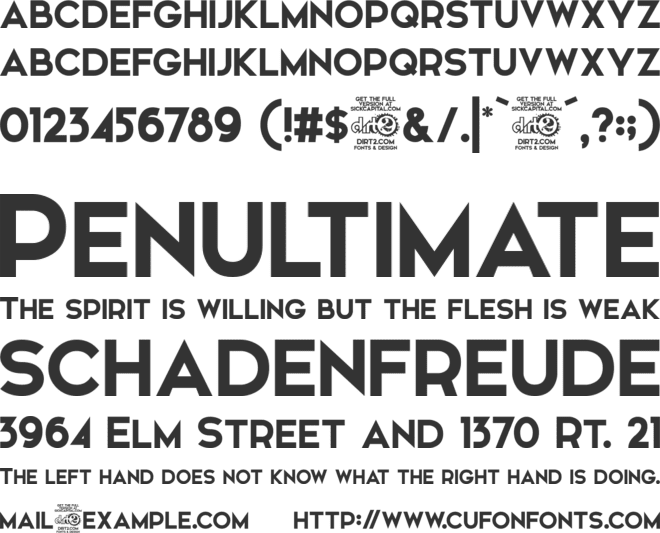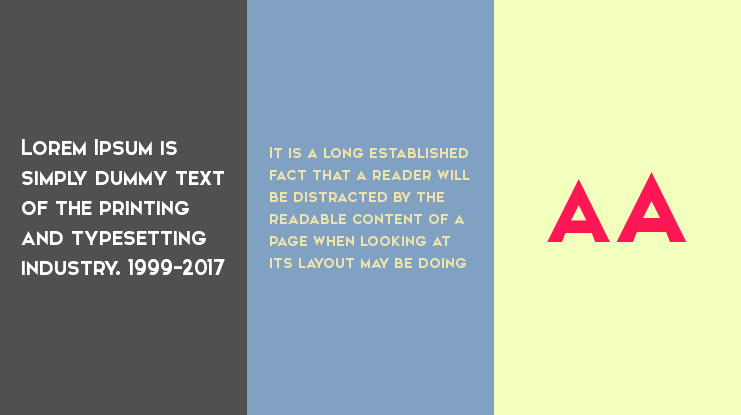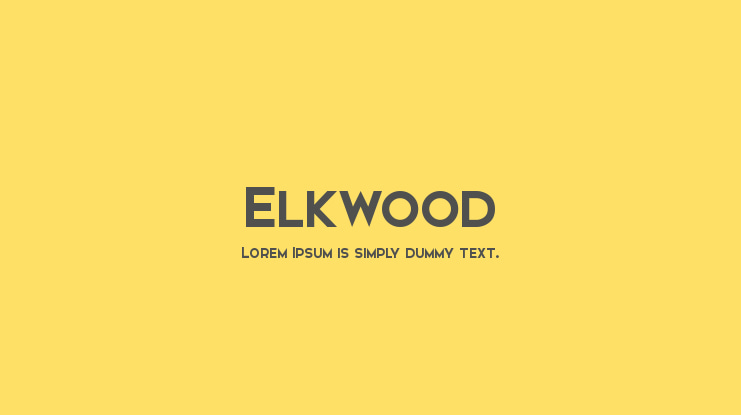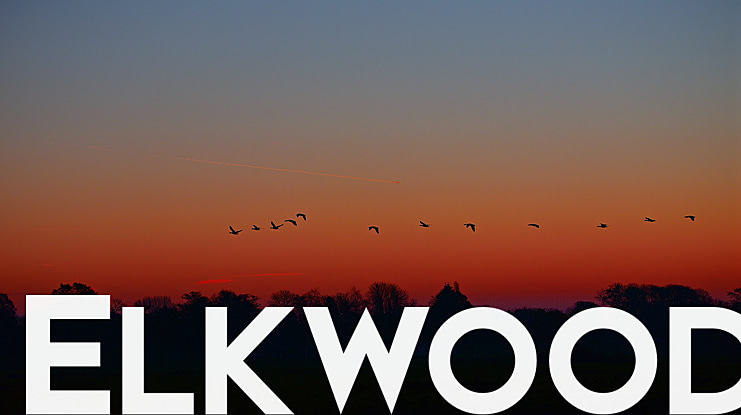
Elkwood Font
Elkwood is the san serif font I made for my winter themed font 'Snowinter'. This font is like a bolder, wider and more polished version of Alpaca that I hope to use for other themed fonts in the future.